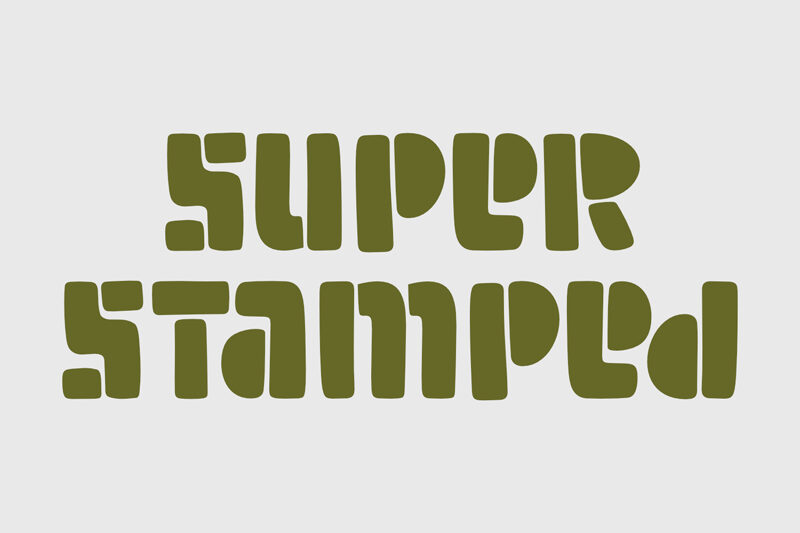
Super Stamped is a bold stencil-style display font with a rugged, military-inspired aesthetic. Its stamped, distressed appearance gives designs a strong industrial and vintage character, making it ideal for posters, logos, labels, apparel, packaging, and headlines. The font combines visual impact with a distinctive handmade feel.